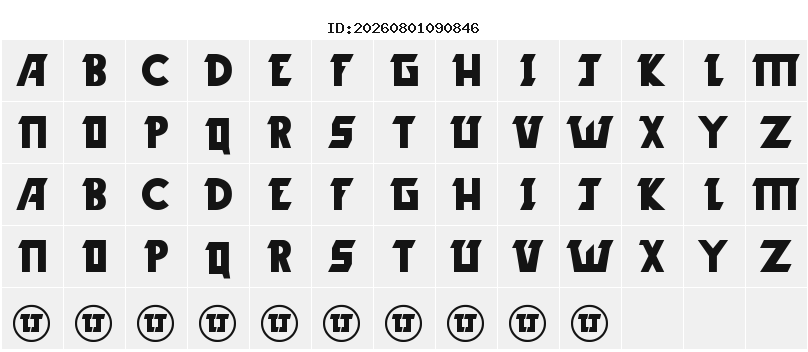
LJ-Design Studios Logo Preview
• Font Name: LJ-Design Studios Logo
• Designer: Luis Jaramillo
• Manufacturer: LJ-Design Studios
LJ-Design Studios Logo.ttf is a modern, elegant sans-serif font designed for ultimate readability and visual harmony. Perfect for branding, headlines, web design, and print materials.